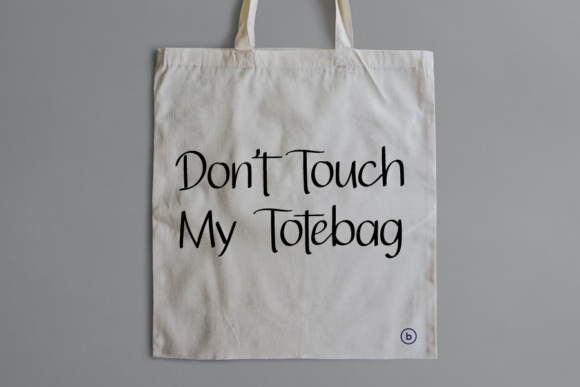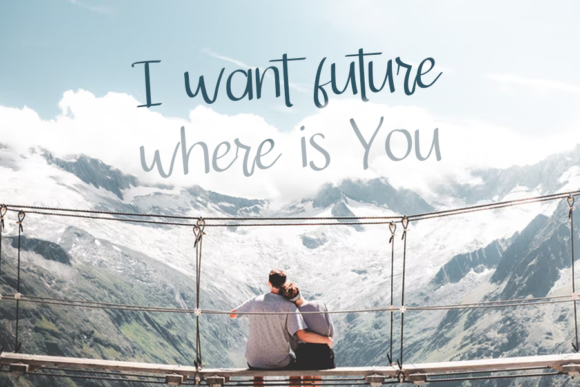
Someday Font
db-ku.com - Script & Handwritten -- Someday is a clean and versatile handwritten font. It is the best choice for creating eye-catching logos, branding, and quotes. Every letter has a unique and beautiful touch that will make your design come alive!